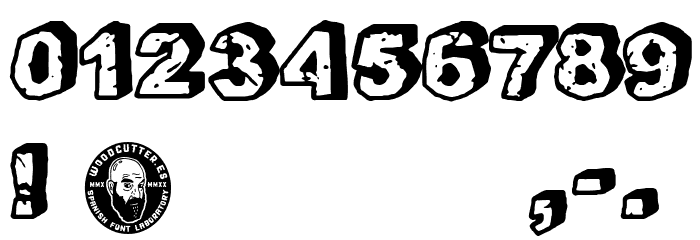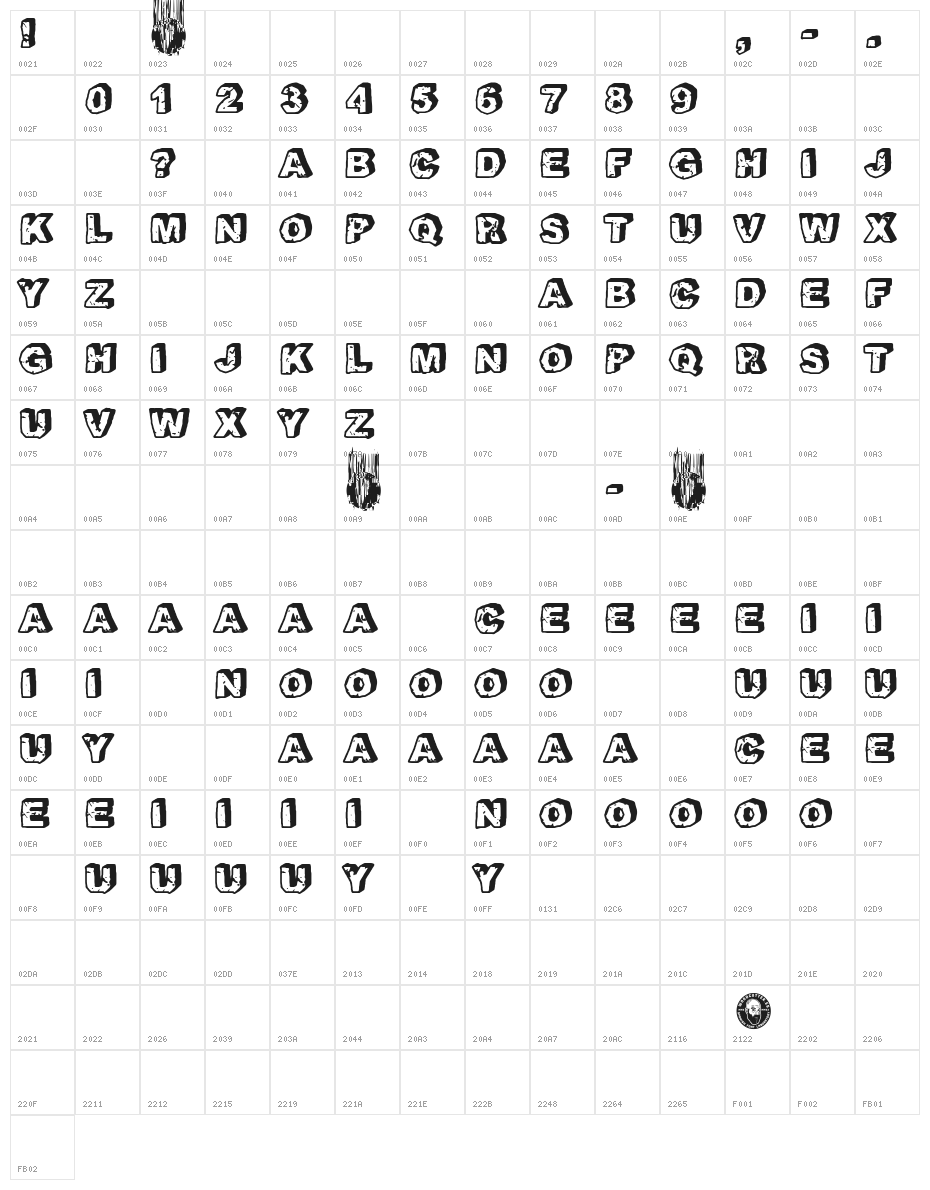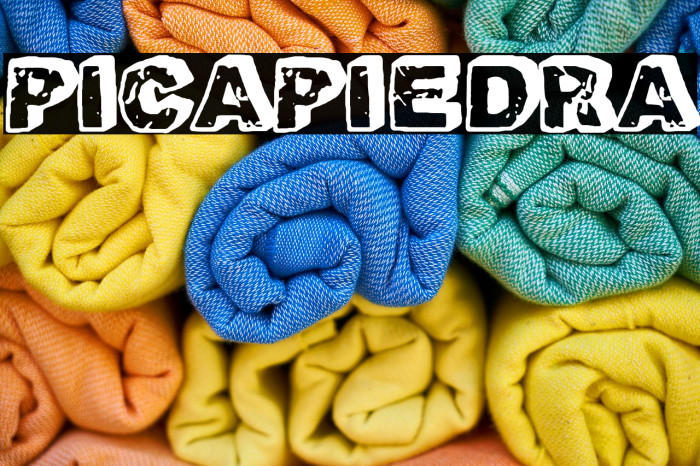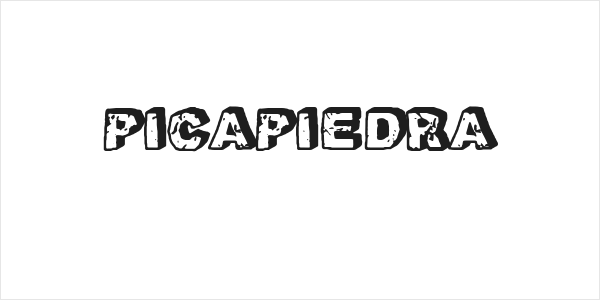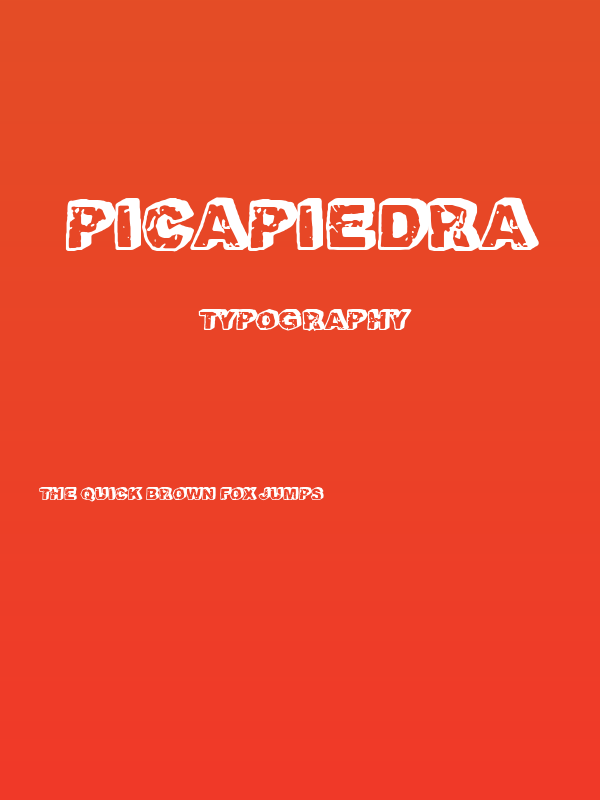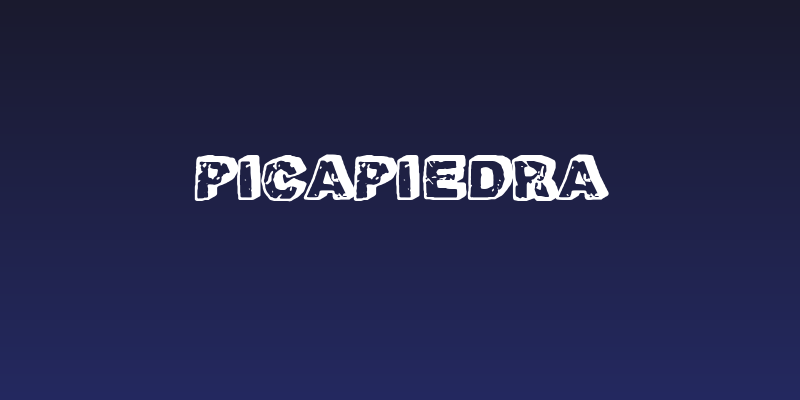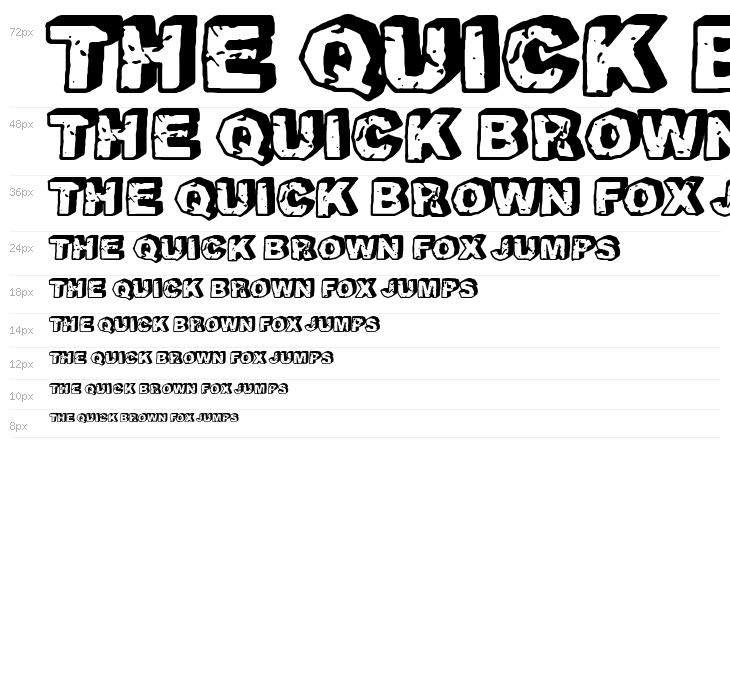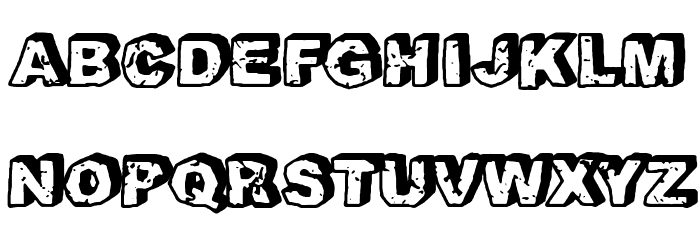
Picapiedra Font
Picapiedra Description
This font features a bold, rugged style with a distressed texture that gives it a stone-like appearance. The characters are thick and blocky, with uneven edges that create a hand-carved effect. The uppercase and lowercase letters maintain a consistent weight, while the numbers and special characters follow the same design theme. The font's unique texture and bold presence make it stand out, ideal for projects that require a strong, impactful look.
| Proposed Projects | Ideal for posters, logos, video game graphics, and themed event invitations. |